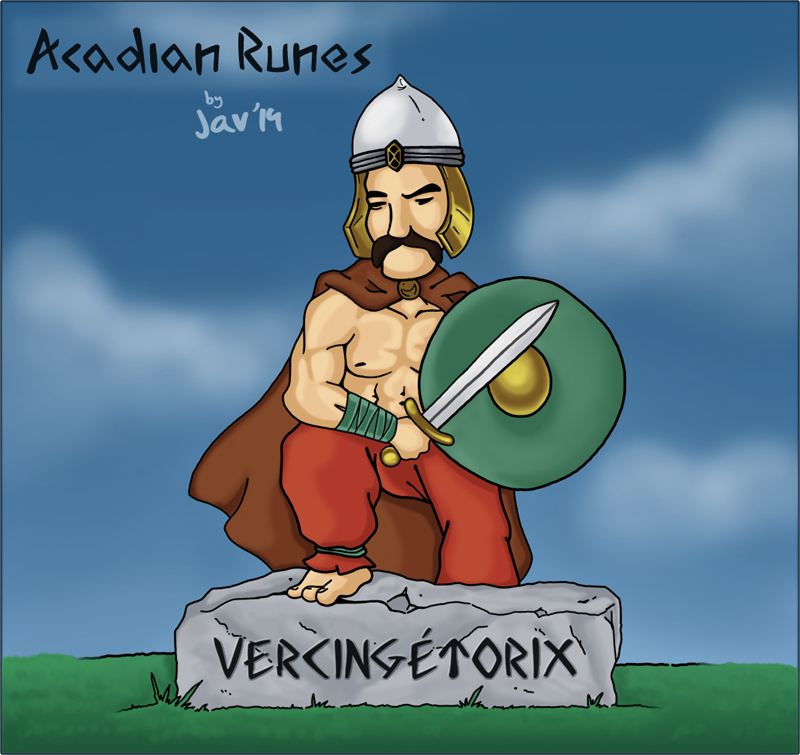
Categories | Dingbats, Runes, Elvish |
A font that reminds a runic alphabet, very useful if you want to write as a druid, a dwarf or something like that... Enjoy! Free for personal use only. It takes a lot of work to create a font. Any donation will be appreciated. Contact: juc.pmp@gmail.com |